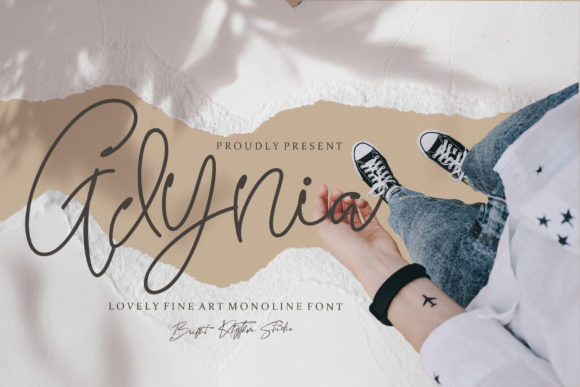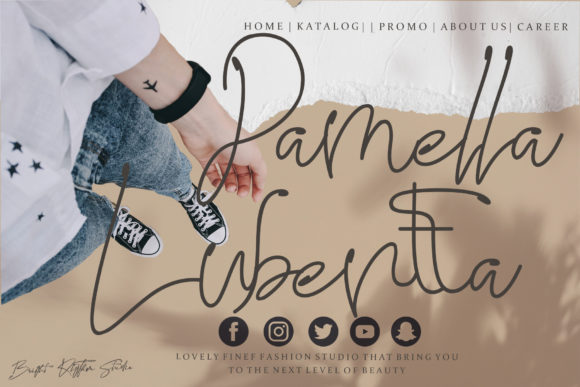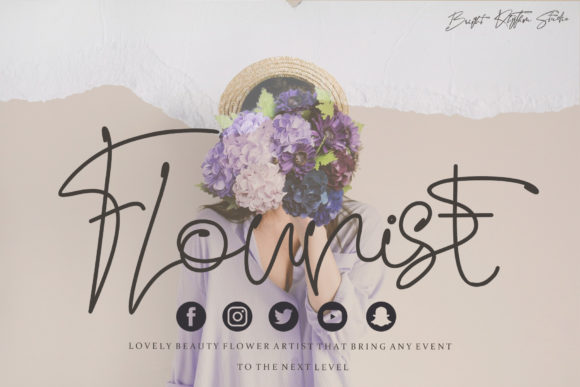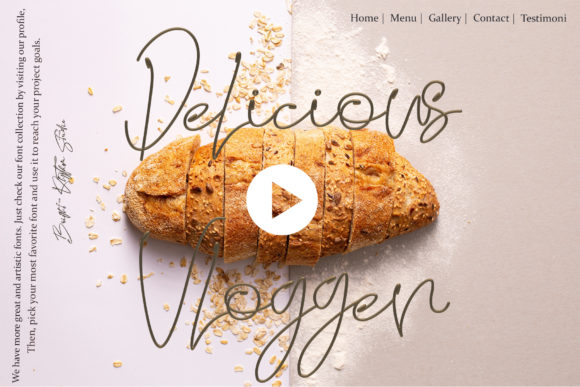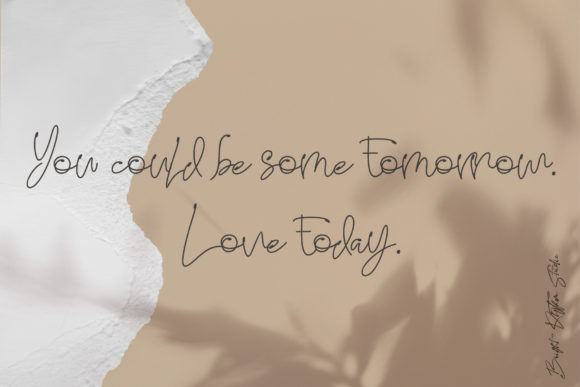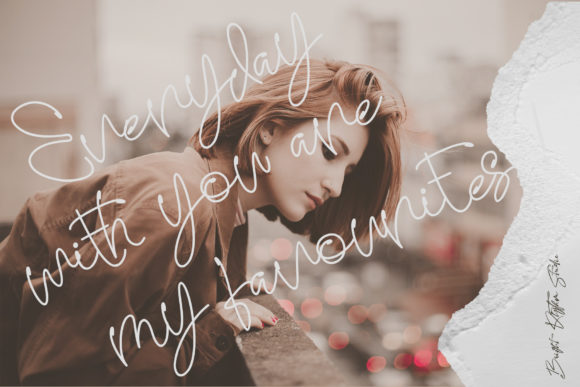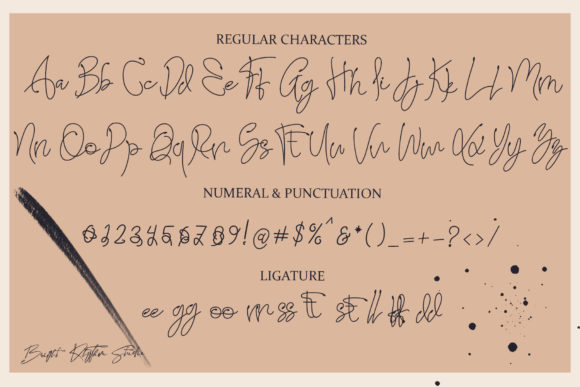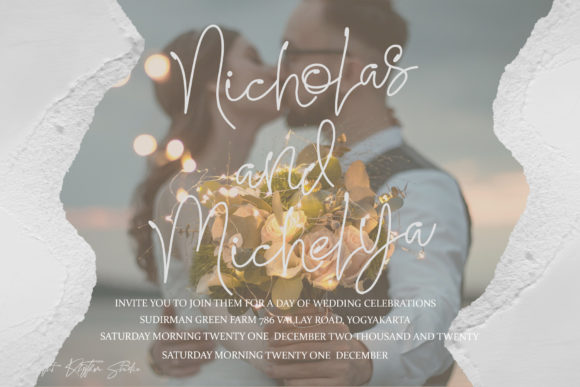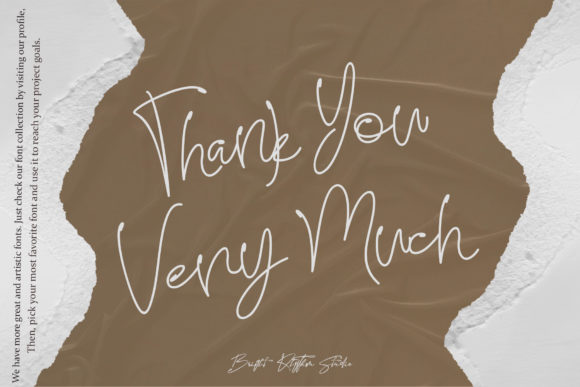
HomePersonal Use FreeGdynia Personal Use Free Gdynia FacebookTwitterPinterestWhatsApp 1 of 9 About Gdynia Font Gdynia is a thin, asymmetrical handwritten font. Its sweet and full of life style makes this font a wonderful choice for brightening up your designs. DOWNLOAD NOW People also explored Lilione Font Bovely Carouge Pro The Shocker Situgintu Calligraphy Fruitasy Kitchen Font Aston Font Calligraphy Font Bundle Vol 6 Cassandra Font 188 0 TagsGdyniaGdynia Font Previous articleArtisan SignatureNext articleHomelands LEAVE A REPLY Cancel reply Comment: Please enter your comment! Name:* Please enter your name here Email:* You have entered an incorrect email address! Please enter your email address here Website: Save my name, email, and website in this browser for the next time I comment. Personal Use Free 1980 Portable Personal Use Free Read more about this font Sweety Blue Personal Use Free Read more about this font Bashira Personal Use Free Read more about this font Rothwell Personal Use Free Read more about this font BLOG Free Fonts Risk: Why Free Fonts Can Be Dangerous for Designers Free Fonts Risk: Why Free Fonts Can Be Dangerous for Designers Using free fonts is a common practice in web and graphic design. However, the... Top 7 Google Fonts Alternatives for Faster and Privacy-Friendly Web Design (2025) Best Fonts for T-Shirt Design – Top 2025 Picks To increase your work productivity, choose the most readable fonts.